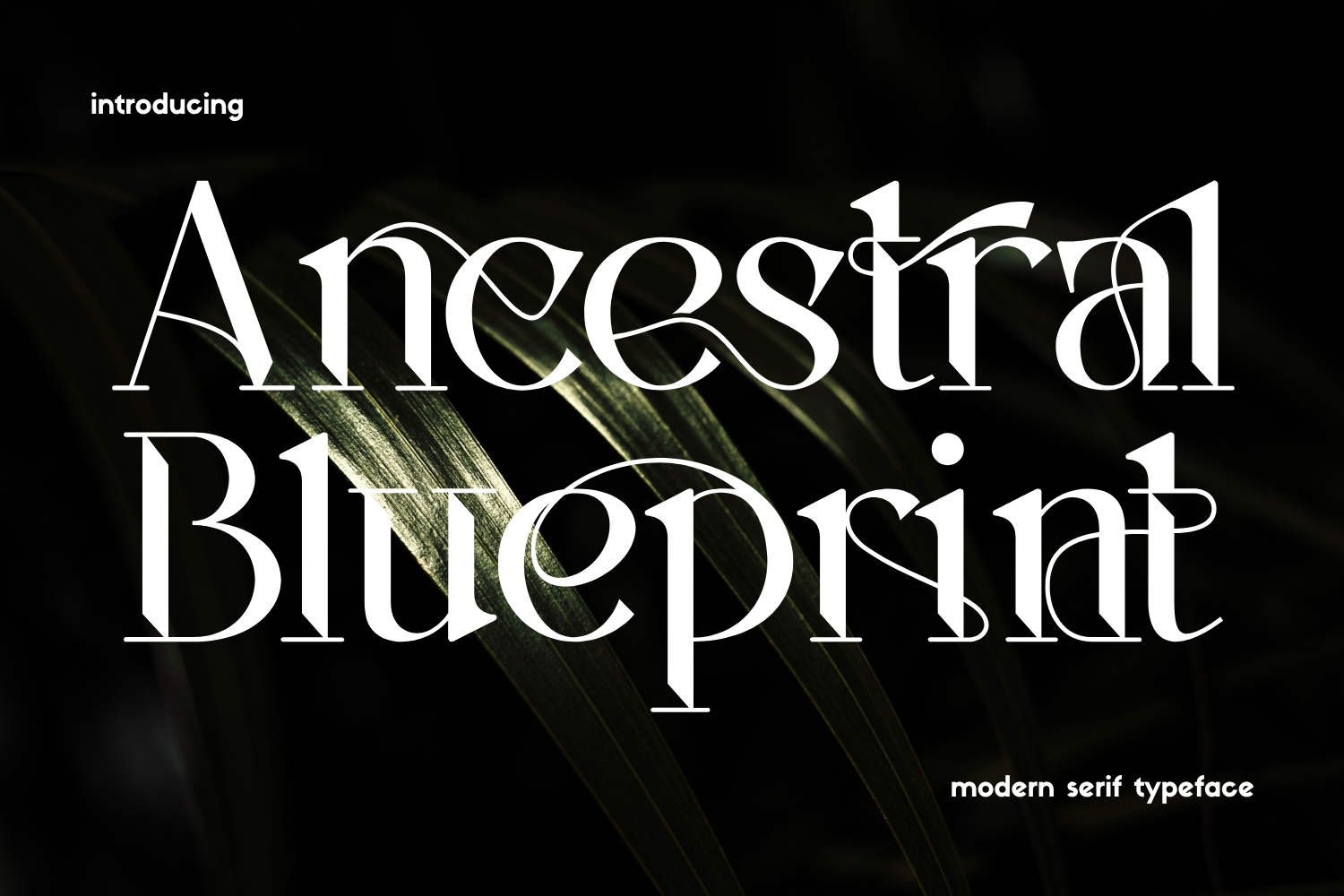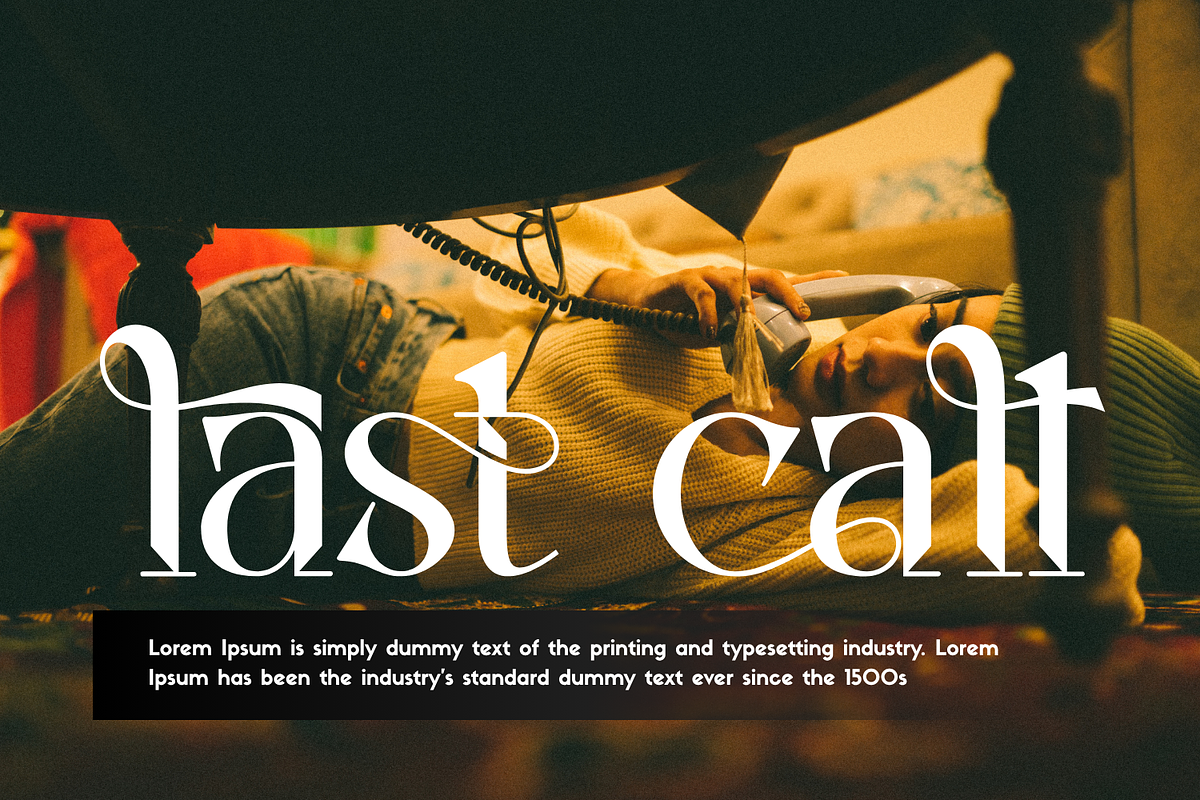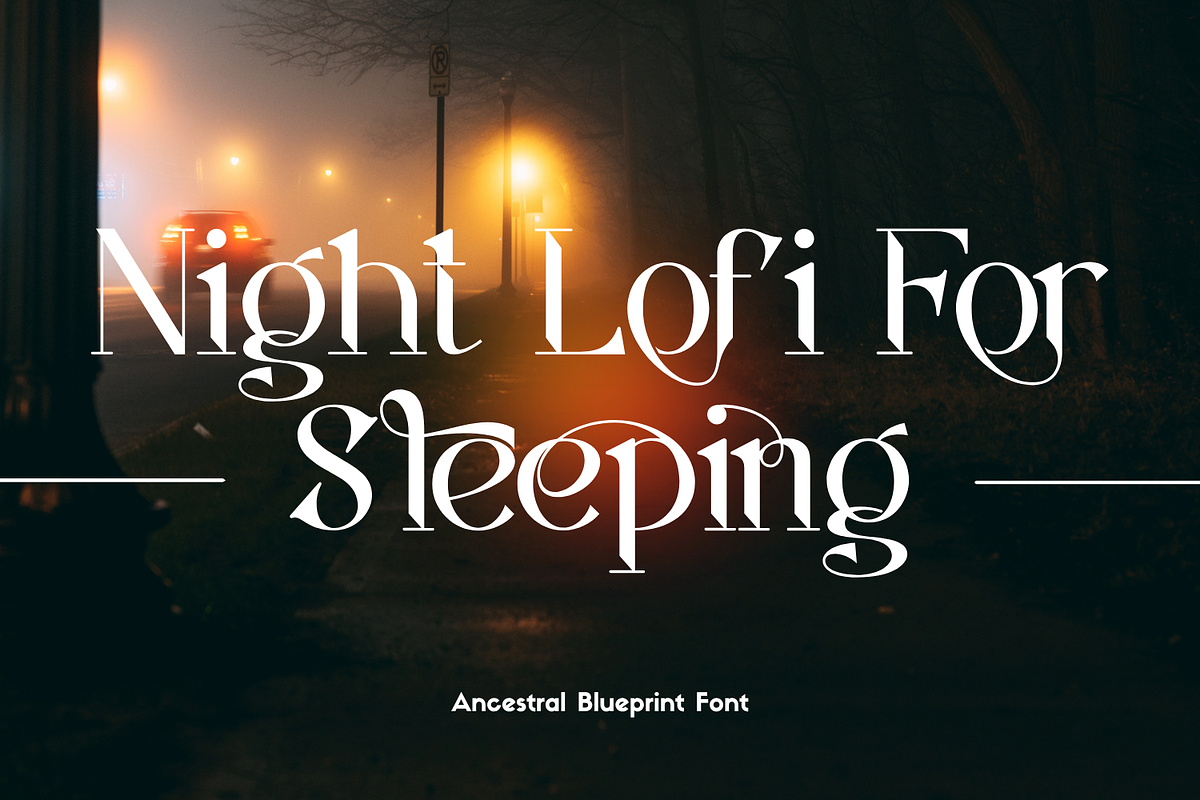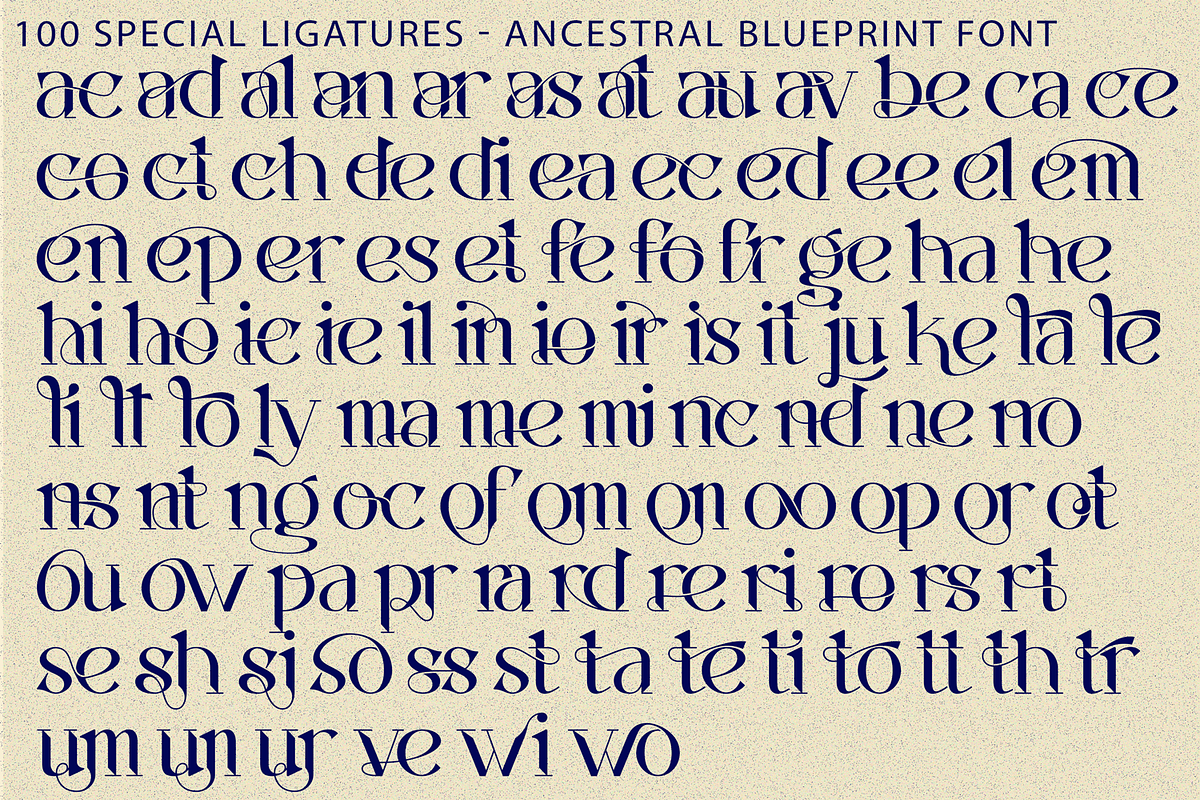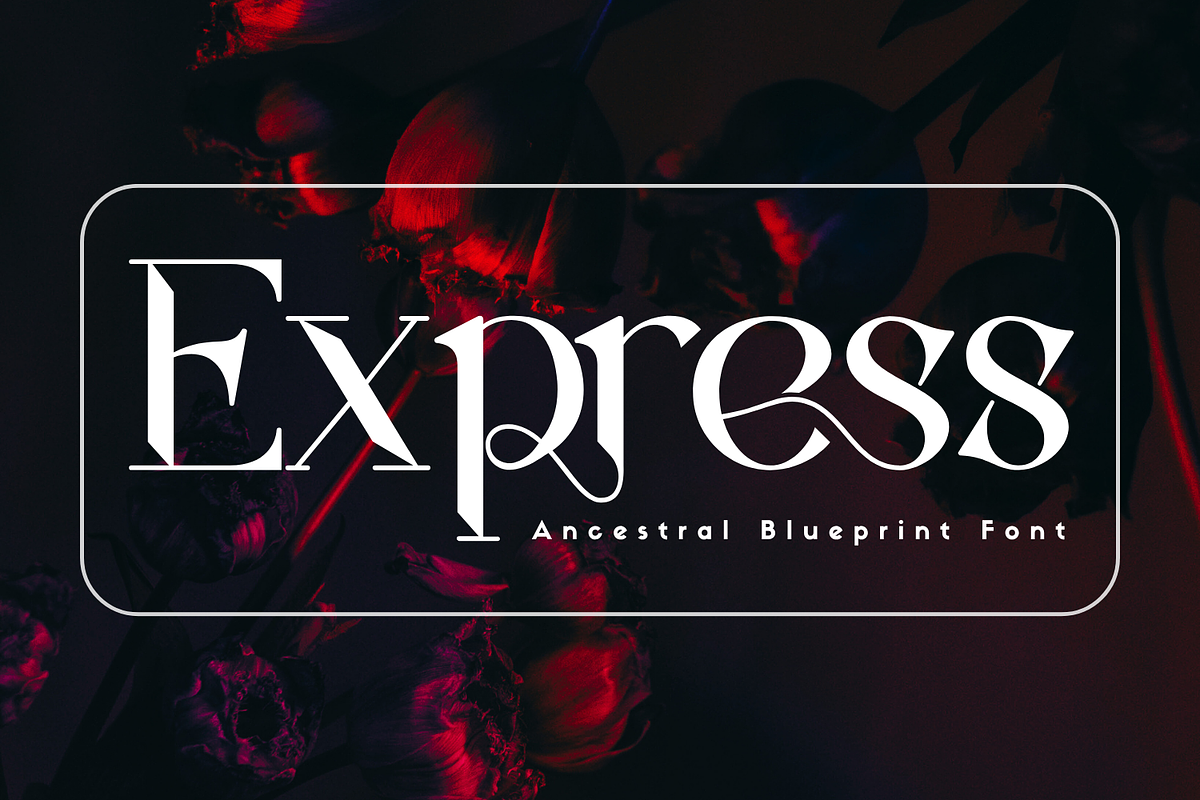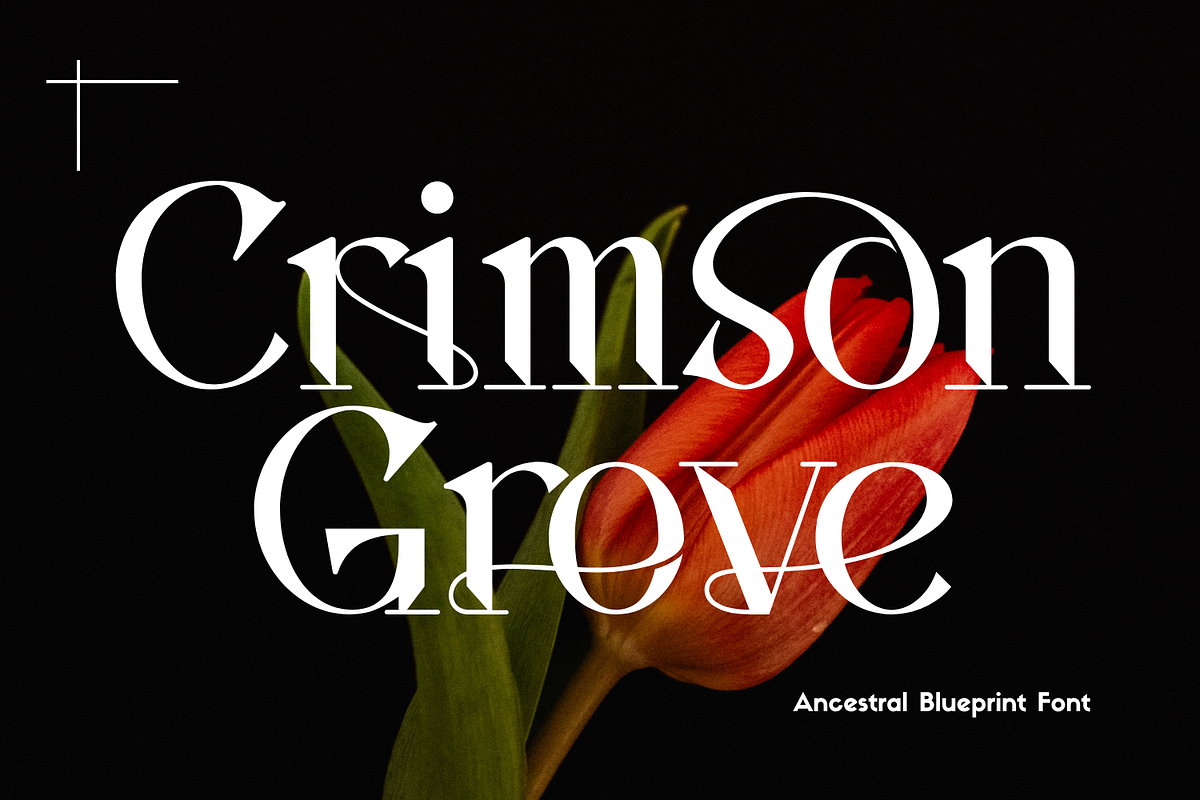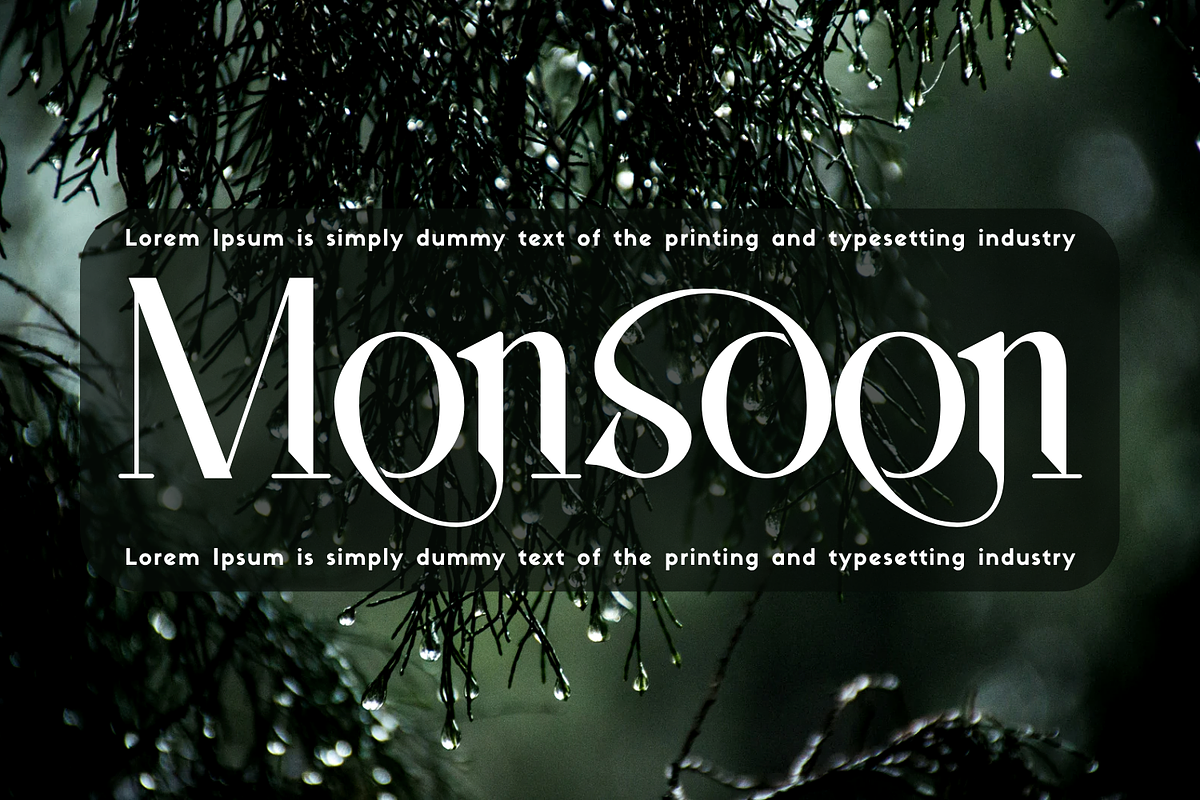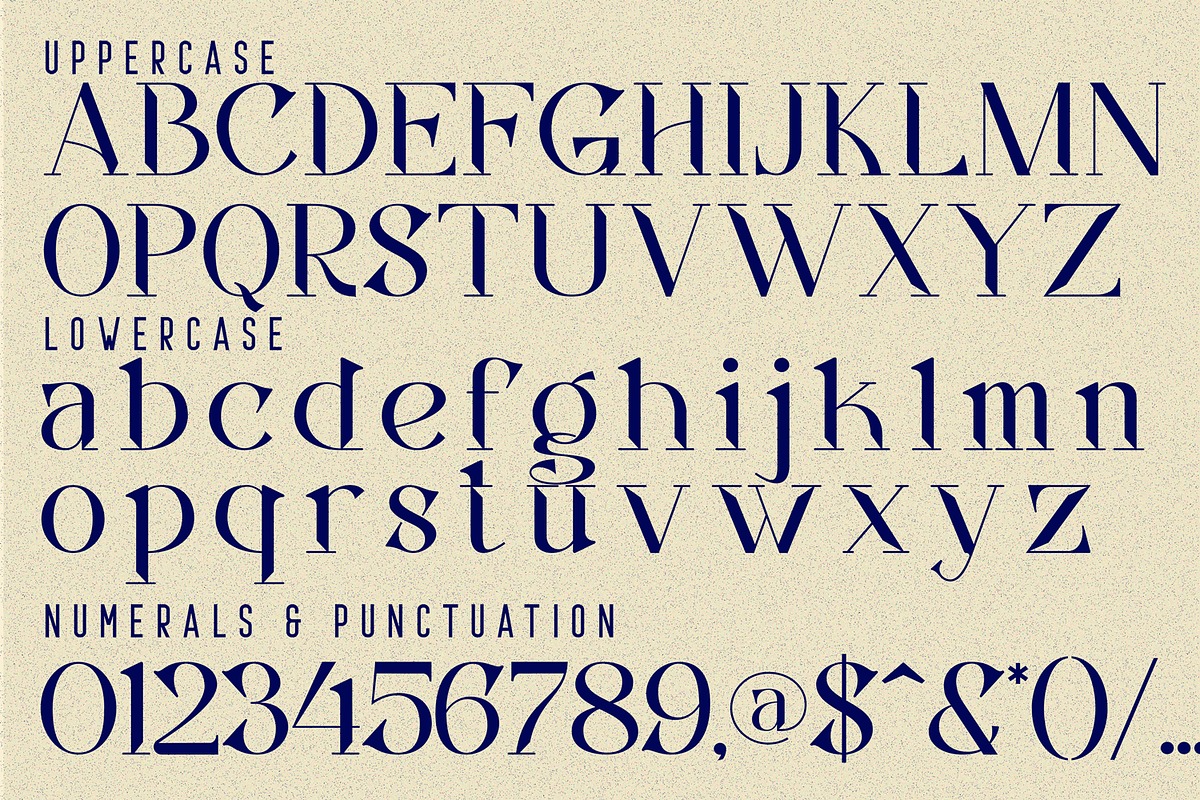
Ancestral Blueprint - Elegant Font
Ancestral Blueprint - Elegant Font is a sophisticated high-contrast serif display font designed to bring elegance and refinement to modern typography. Featuring delicate thin strokes paired with bold vertical forms, this typeface creates a striking visual contrast that feels both timeless and contemporary. Enhanced with graceful swashes and carefully crafted ligatures, Ancestral Blueprint adds a fluid, artistic touch to every word. Its sharp serifs and elegant curves make it perfect for luxury branding, editorial layouts, fashion headlines, and premium logo design.
🔤Features:
- Uppercase & Lowercase Letters
- Around 100 Special Ligatures & Alternates
- Accented Characters for multilingual support
🔤About 100 ligatures combined with Stylistic Alternates Font:
ac ad al an ar as at au av be ca ce ch co ct de di ea ec ed ee el em en ep er es et fe fo fr ge ha he hi ho ie ic il in io ir is it ju ke la le li ll lo ly ma me mi nc nd ne ng no nt ns oc of om on oo op or ot ou ow pa pr ra rd re ri ro rs rt se sh si so ss st ta te th ti to tr tt um un ur ve wi wo